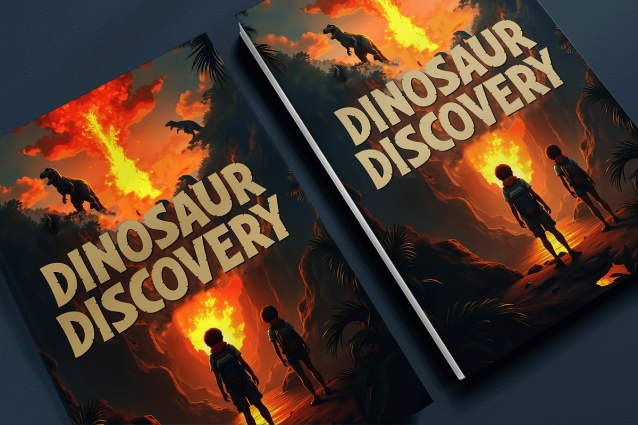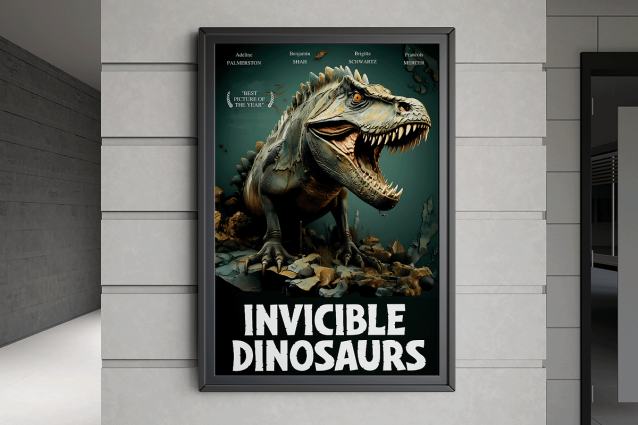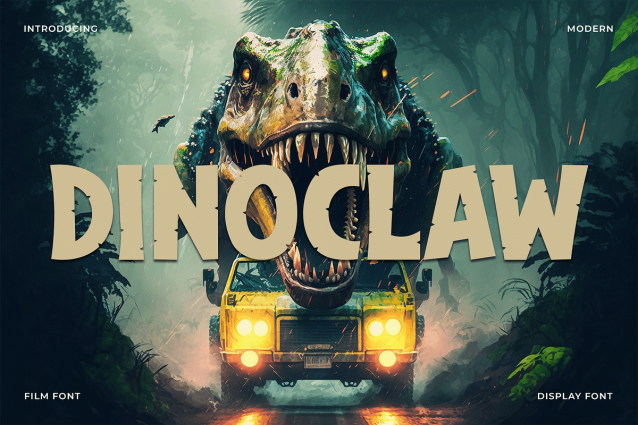
Dinoclaw Font
Dinoclaw Font a bold modern display font with a fierce personality and strong visual impact. Inspired by primal energy and raw creativity, Dinoclaw is perfect for projects that demand attention — from eye-catching headlines to adventurous branding, gaming designs, posters, and merch.